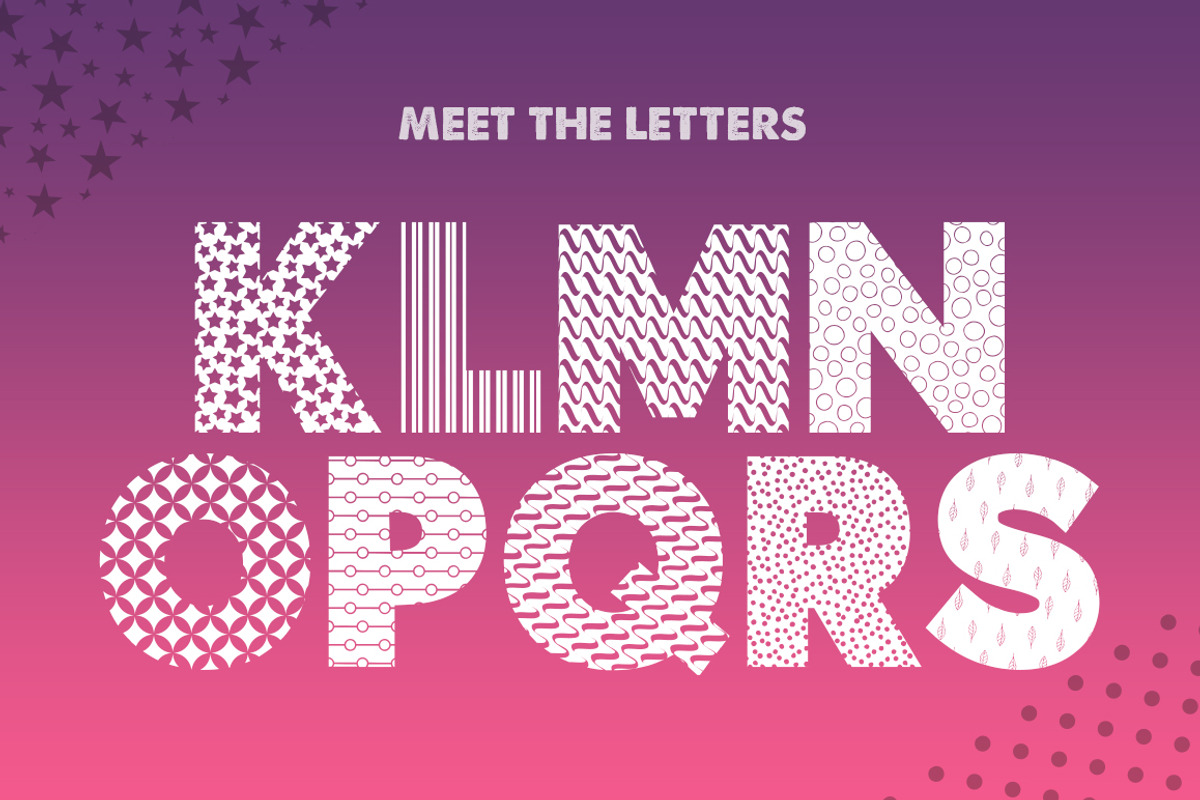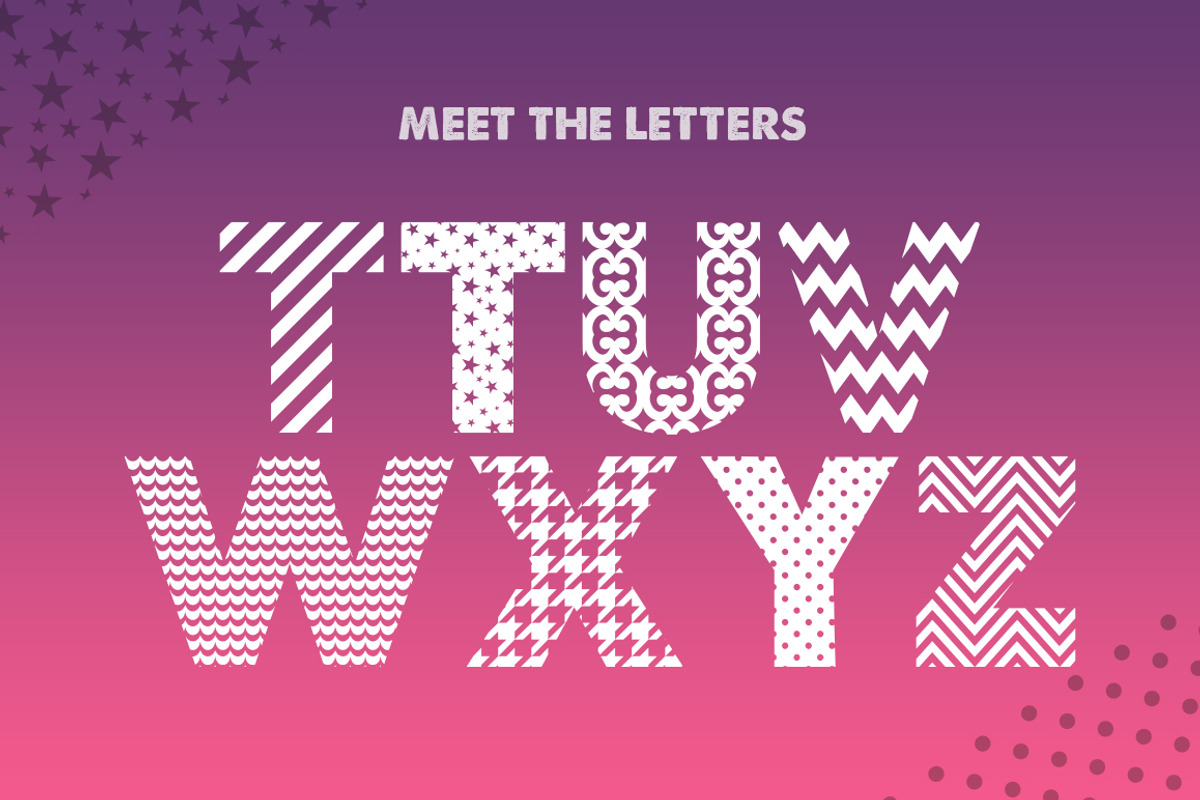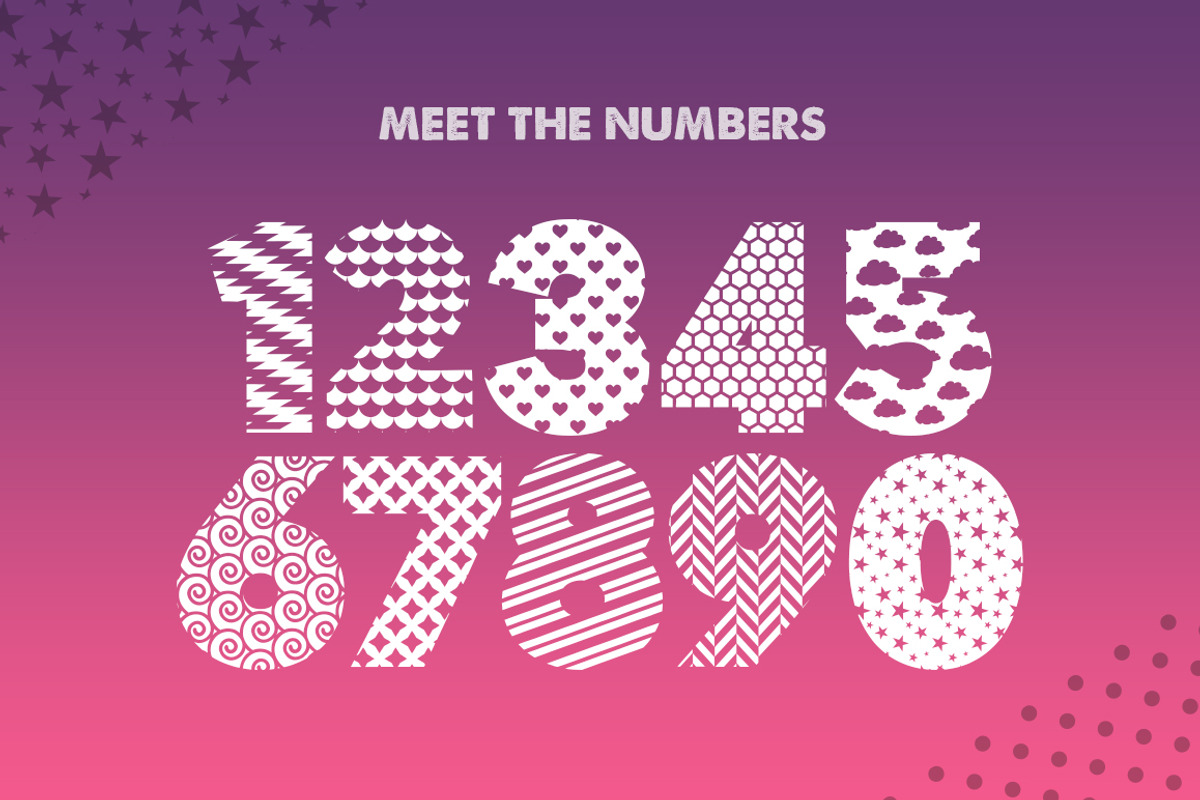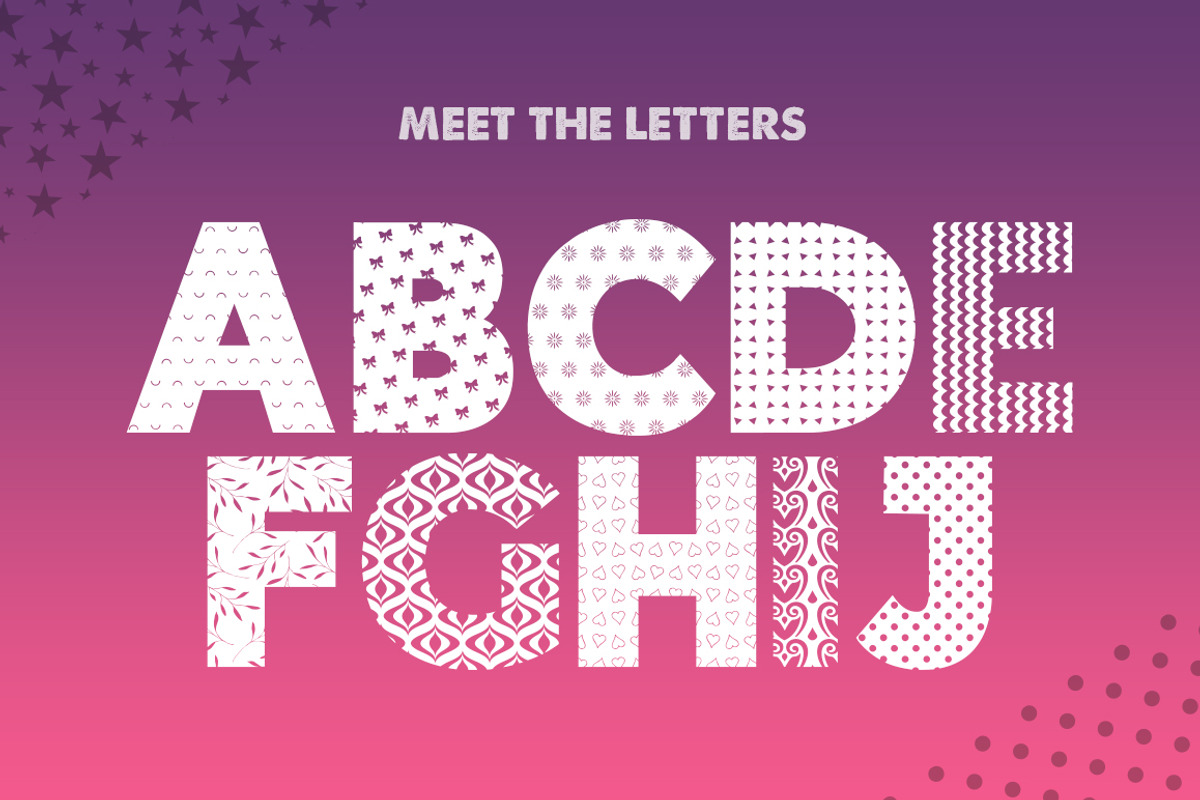
Pattern Silhouette Font
Why Pattern Silhouette Font is worth a look
Pattern Silhouette Font by Salt & Pepper Designs fits naturally into Branding, posters, packaging, typography.